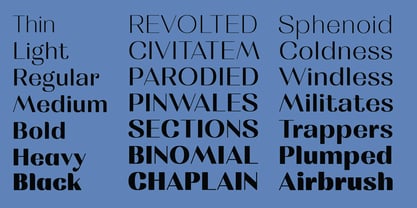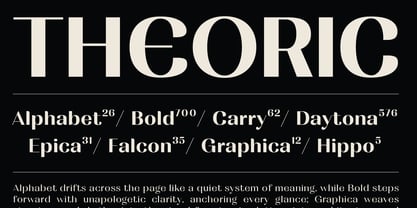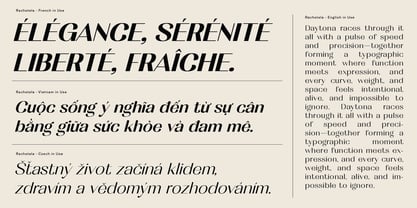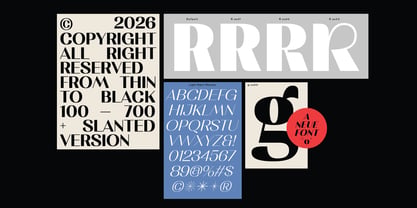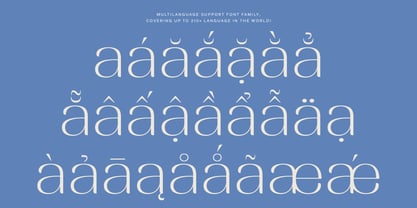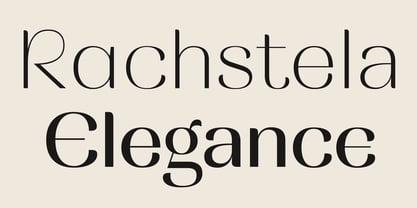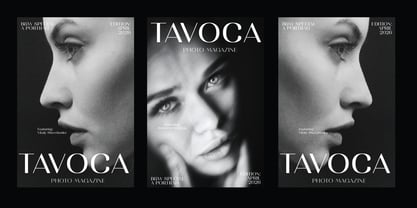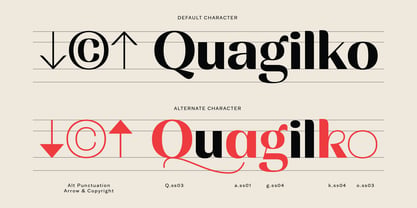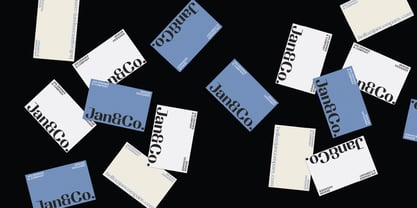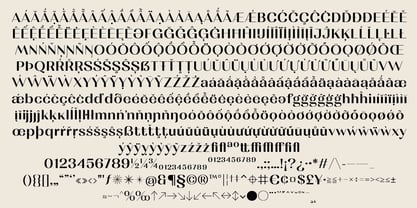
MTC Rachstela
by Martype co
The MTC Rachstela Font Family was designed by Umar Al Farouq and published by Martype co. MTC Rachstela contains 14 styles and family package options. More about this family
Rachstela is a bold, high-contrast sans serif typeface crafted for those who communicate through impactful headlines. Its striking stroke variation and sharp geometric precision ensure that Rachstela captures attention, whether it's leading a luxury fashion campaign, anchoring a high-end editorial spread, or making a bold statement on a poster that demands to be seen. Designed for sophistication, Rachstela combines the editorial tension of a contrast serif with the clean modernity of a sans serif, creating a rare and instantly distinctive presence in the realm of display typography. Ideal for luxury fashion brands, beauty campaigns, high-end editorial layouts, magazine covers, event branding, perfume and cosmetics packaging, wedding stationery, architectural signage, and premium product identity.
Designers: Umar Al Farouq
Foundry: Martype co